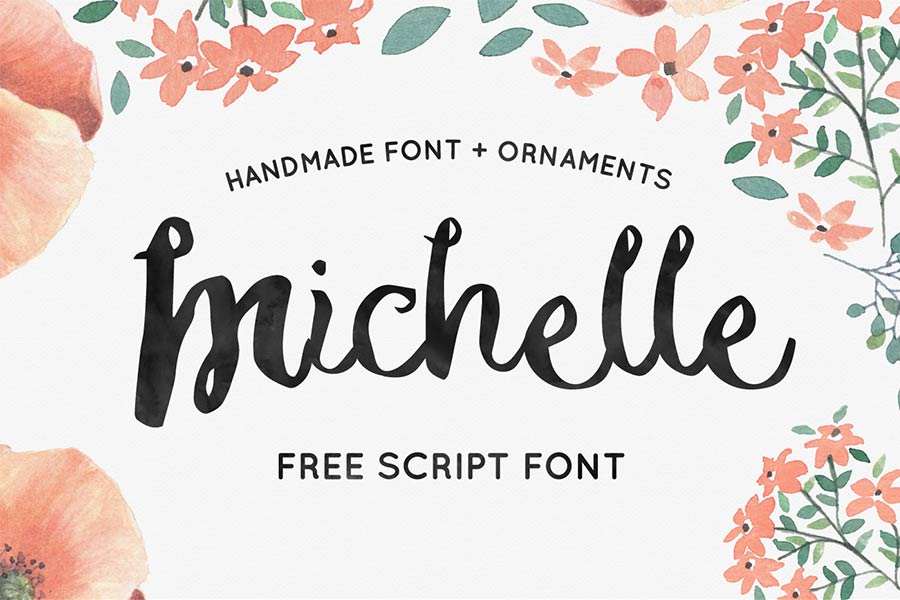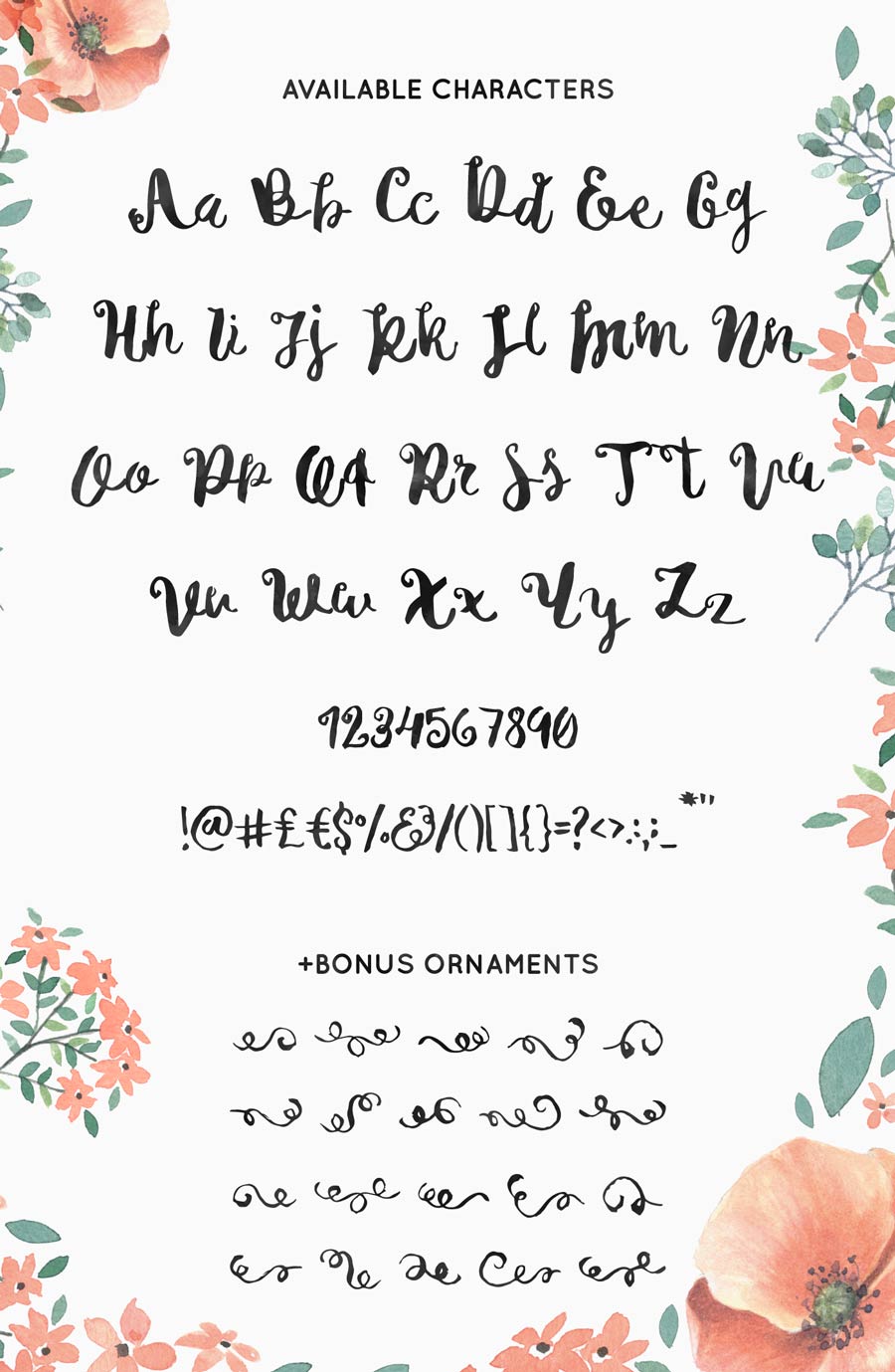
Michelle is a beautifully created script font that brought to you by hand lettering master, Noe Araujo. This font comes with bonus ornaments font that can be used to enhance the type design. Michelle is particularly perfect for invitation card designs and also designs that targeted to female audiences. The beautiful watercolour illustrations was created by Mats-Peter Forss.